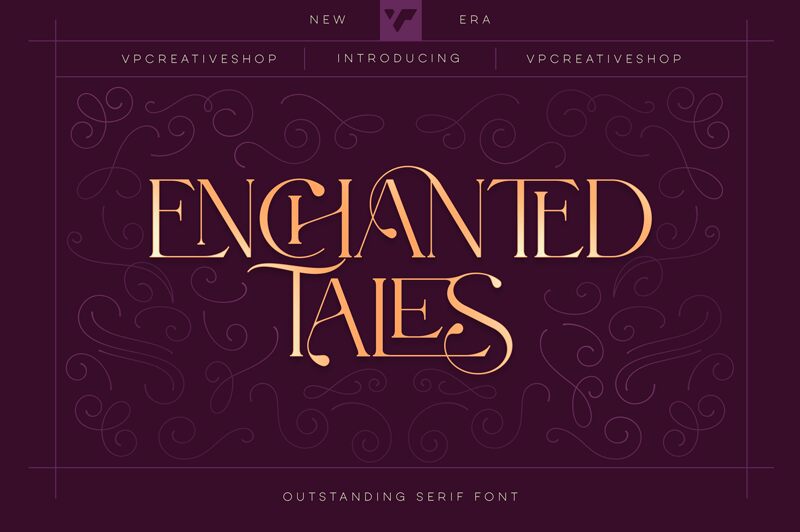
Enchanted Tales Free Demo
Enchanted Tales font by VPcreativeshop is a sophisticated serif typeface celebrated for its elegant curves and timeless charm. Its refined presence offers an air of elegance, making it ideal for designs that demand a classic touch. The font combines traditional sensibility with modern finesse.
This free serif font is perfect for branding projects, book covers, editorial design, invitations, greeting cards, logos, packaging design, posters, event promotions, and website headers.